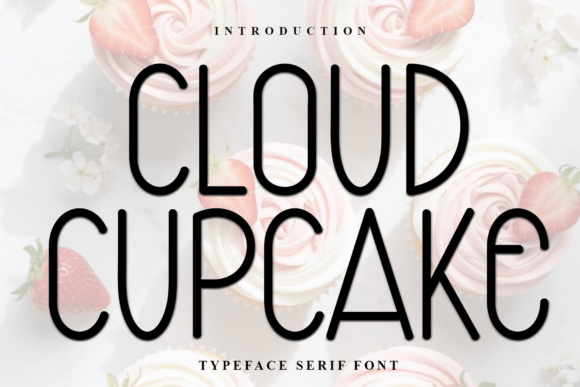
The Sweet Taste of Creativity
Imagine you’re in a cozy bakery, surrounded by the sweet aroma of freshly baked cupcakes. As you gaze at the delicate decorations on top of each treat, you can’t help but feel inspired by the intricate details and colors. This is the kind of creative spark that the Cloud Cupcake Font can ignite in your design projects.
Cloud Cupcake Font is a beautiful and unique font designed to add a touch of whimsy to your creative works. With its soft, distinctive strokes, it’s perfect for designers looking to add a personal touch to their designs. This versatile font is compatible with various applications, including Windows and open-source platforms, making it a valuable addition to any designer’s toolkit.
Cloud Cupcake Font Key Features
- Font Family: Cloud Cupcake is a unique, hand-drawn font that features a whimsical and playful design.
- Character Set: The font includes a full set of characters, including uppercase and lowercase letters, numbers, and punctuation marks.
- Resolution: Cloud Cupcake is optimized for use at high resolutions, making it perfect for use in digital displays and high-quality printed materials.
- Unique Characteristics: The font’s hand-drawn design and playful feel make it perfect for use in creative and whimsical applications, such as children’s books, food labels, and advertising materials.
Cloud Cupcake Font Review
Overall, I found the Cloud Cupcake Font to be a unique and whimsical choice for designs that require a playful touch. The font’s ✨airy and lighthearted feel makes it perfect for bakeries, cafes, and other food-related businesses. The font’s design elements, such as the rounded edges and soft curves, add to its charm and make it visually appealing.
- ✨Unique and playful design that adds a whimsical touch to designs
- Perfect for bakeries, cafes, and other food-related businesses
- Soft curves and rounded edges make it visually appealing
- ⚠️Limited use in formal or professional designs due to its playful nature
- ⚠️May not be suitable for designs that require a lot of technical details or complex information
- ⚠️Some characters may be difficult to read in smaller font sizes
Overall, I would recommend the Cloud Cupcake Font for designers who are looking for a unique and playful font to add a touch of whimsy to their designs. However, it may not be the best choice for more formal or technical designs.
The Cloud Cupcake Font is perfect for:
- Bakery or dessert-themed designs
- Food or drink branding
- Whimsical or playful designs
Alternatives to Cloud Cupcake Font
Great Vibes is a beautiful, cursive script font that is perfect for adding a touch of elegance and sophistication to your designs. It is ideal for use in wedding invitations, greeting cards, and other creative projects where a handwritten feel is desired. Compared to Cloud Cupcake Font, Great Vibes has a more refined and classic look, making it suitable for a wider range of applications.
Carolyna Pro is a modern, elegant script font that is designed to evoke a sense of luxury and sophistication. It is perfect for use in high-end branding, advertising, and editorial projects where a high-end feel is desired. Compared to Cloud Cupcake Font, Carolyna Pro has a more polished and refined look, making it suitable for use in more formal and professional applications.
Crimson Text is a classic, serif font that is perfect for use in body text and headlines where a traditional, timeless look is desired. It is ideal for use in books, magazines, and other publications where a high level of readability is necessary. Compared to Cloud Cupcake Font, Crimson Text has a more formal and traditional look, making it suitable for use in more conservative and classic designs.